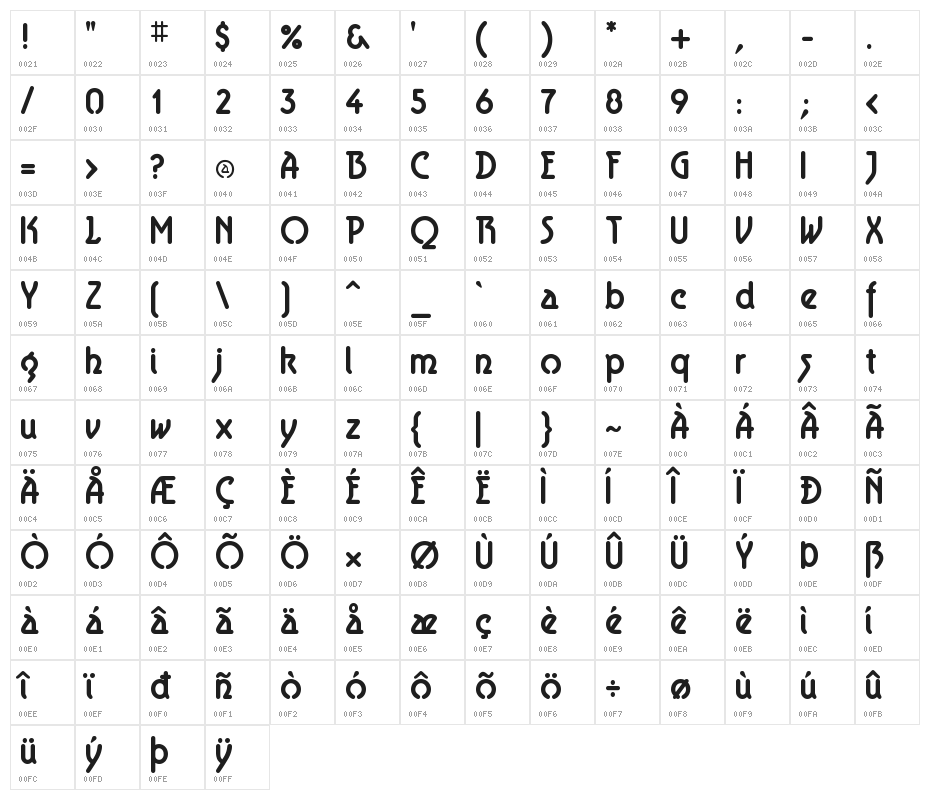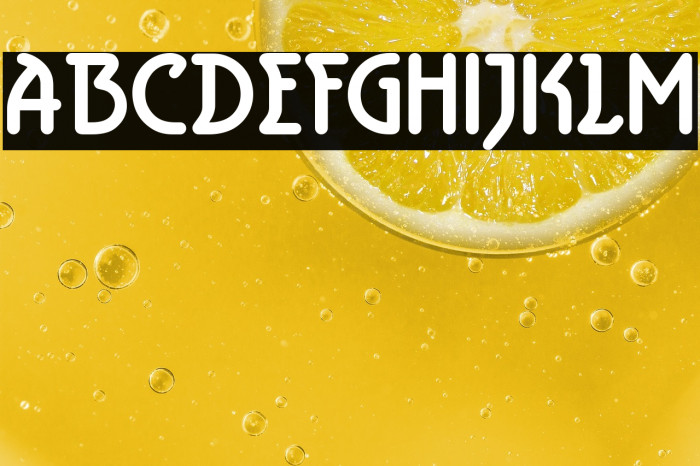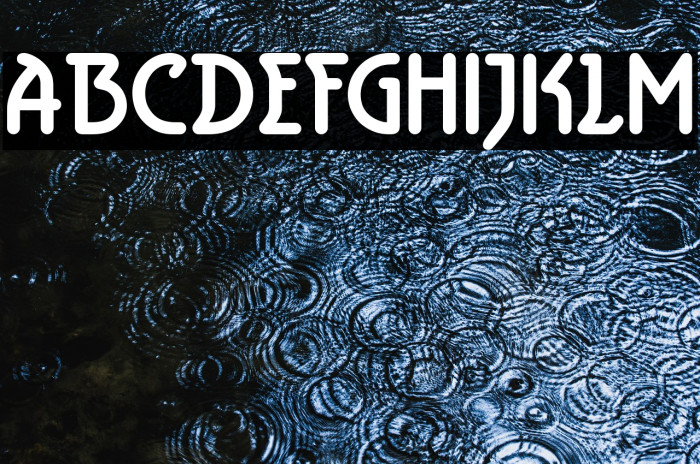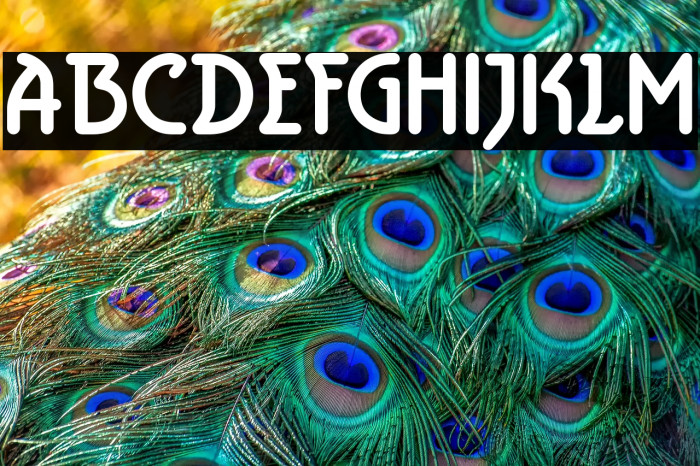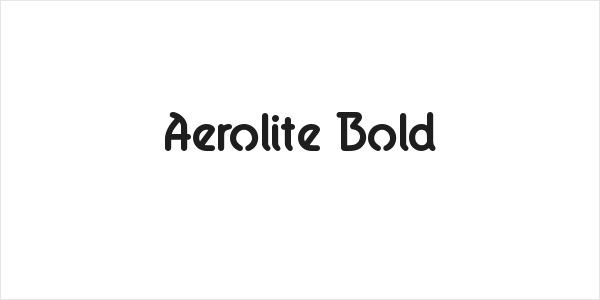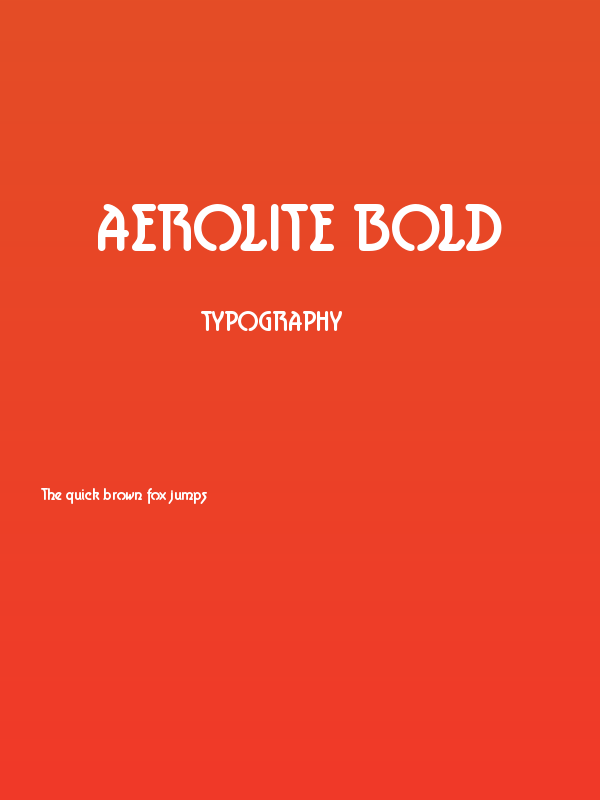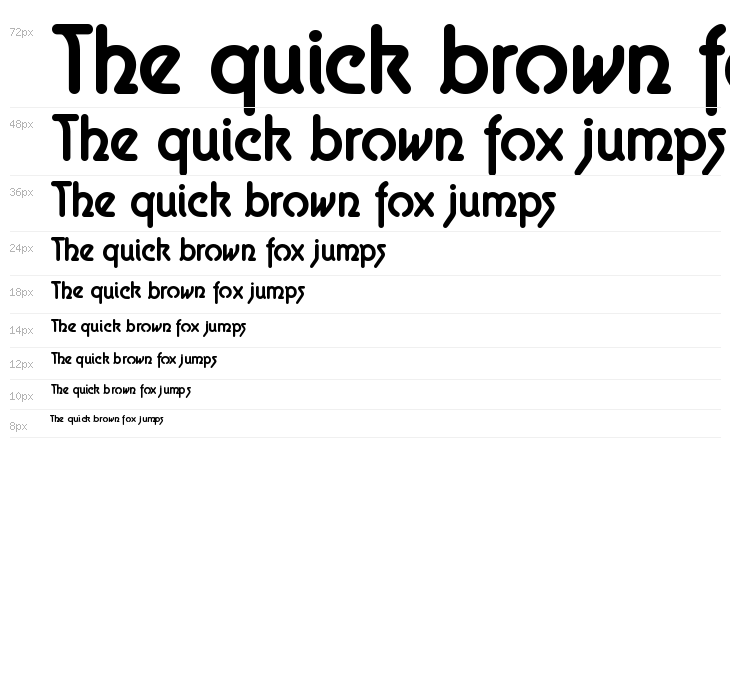
Aerolite Bold Font
Aerolite Bold Description
This font features a bold and rounded style with a distinctly modern and playful appearance. The characters are designed with a consistent stroke width, giving them a uniform look. The rounded edges and smooth curves create a friendly and approachable feel. The uppercase letters are slightly taller than the lowercase, maintaining a balanced proportion. The numerals and special characters follow the same design principles, ensuring coherence across all glyphs. This font is ideal for projects that require a fun and engaging aesthetic.
| Proposed Projects | Ideal for children's books, playful branding, posters, and creative advertising. |